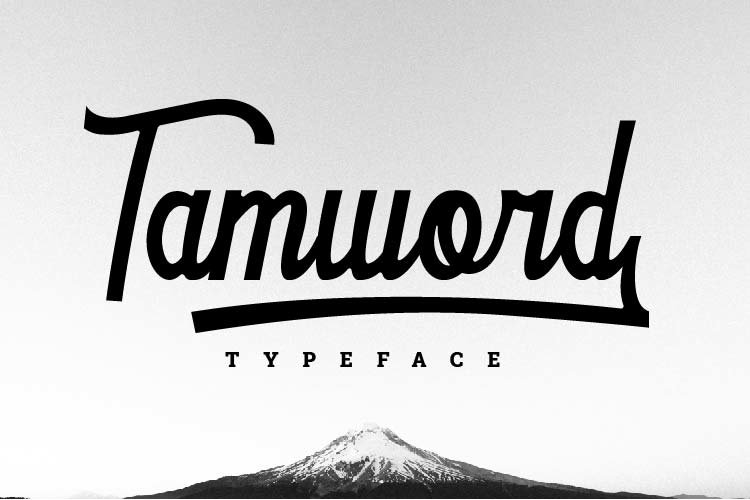
Introducing a new script font with a bold and clear style. Yes you can use this font in your projects and make it even more classy. It can be applied to logos, video previews, crafts, apparel products, packaging, photographer watermarks, and any of your other awesome projects. for an overview you can see some of the previews above.
-Uppercase
-Lowercase
-Numeral
-Punctuation
-Multilingual
-Alternate
-Ligature
-Swash